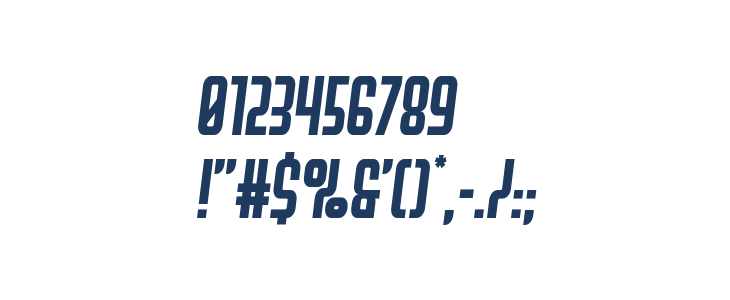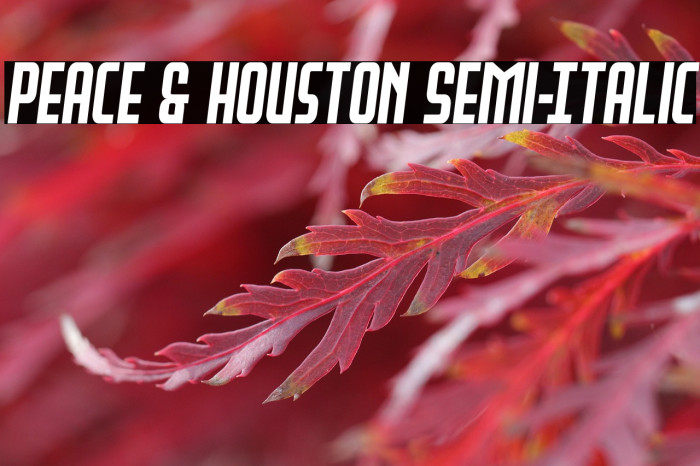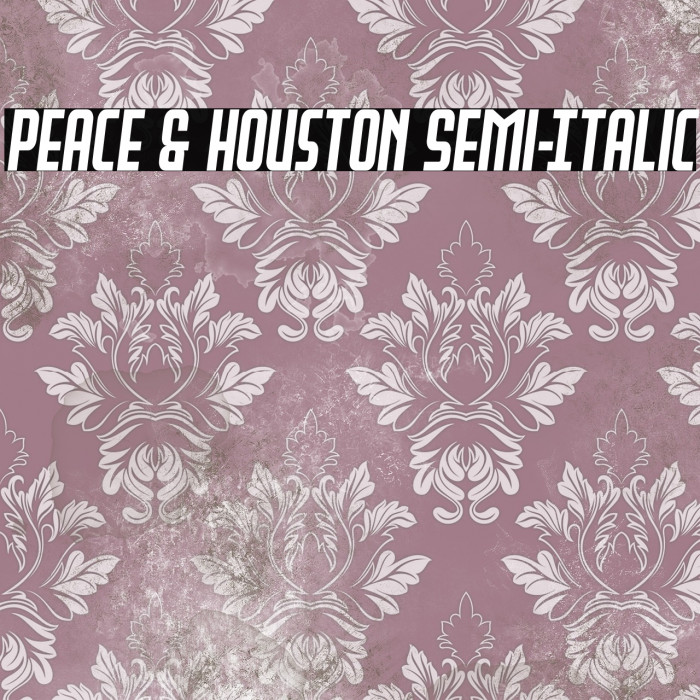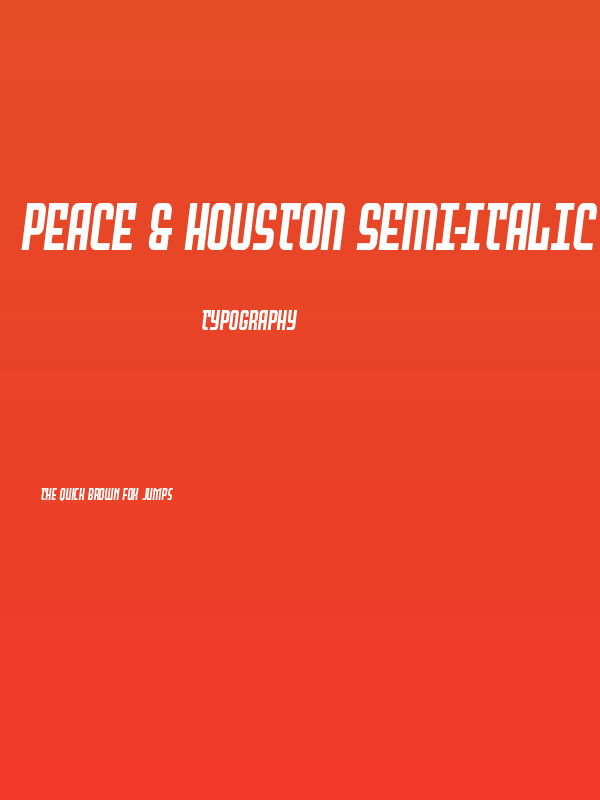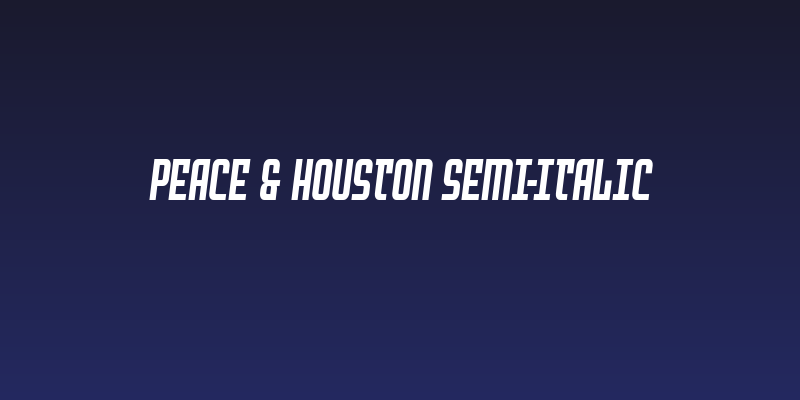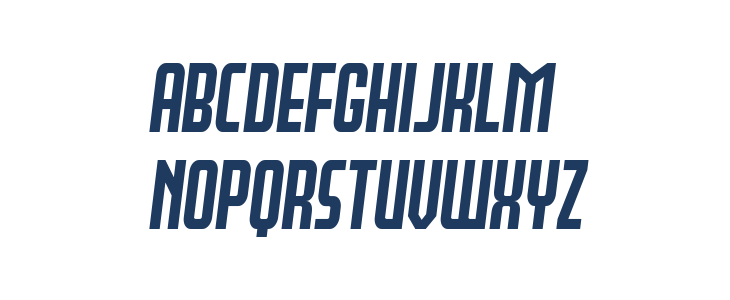
Peace & Houston Semi-Italic Font
Peace & Houston Semi-Italic Description
This font features a bold and dynamic style with a semi-italic slant, giving it a sense of movement and energy. The characters are tall and slightly condensed, with sharp angles and clean lines that create a modern and assertive appearance. The uppercase and lowercase letters maintain a consistent width, contributing to a uniform look. The numerals are equally bold, ensuring readability and impact. Special characters are designed with the same attention to detail, making them stand out. This font is ideal for projects that require a strong and contemporary aesthetic.